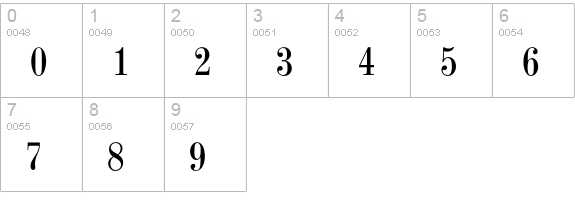
Madison Condensed Light Font Details
Madison Condensed Light is a refined, elegant, condensed-width variant in the Madison typeface family \xE2\x80\x94 well suited to elegant body text, refined sub-headings, and luxury branding.
Madison Condensed Light font is a stunning typeface that exudes elegance and sophistication. With its sleek and modern design, this font is perfect for creating eye-catching headings, logos, and branding materials. The condensed letterforms of Madison Condensed Light give it a unique and stylish appearance, making it a versatile choice for a wide range of design projects. This font features a harmonious balance between its thin strokes and generous letter spacing, resulting in a clean and polished look. The tall and slender letterforms of Madison Condensed Light add a touch of sophistication to any design, while still maintaining excellent legibility. One of the best things about Madison Condensed Light font is that it is available for free! That's right, you can freely download this font at FontsMarket.com. Whether you're a professional designer or a hobbyist, this font is a valuable addition to your font library. Its versatility and timeless appeal make it suitable for both print and digital design projects. So, if you're looking for a font that combines elegance, modernity, and legibility, look no further than Madison Condensed Light. Download it for free at FontsMarket.com and let your creativity soar.